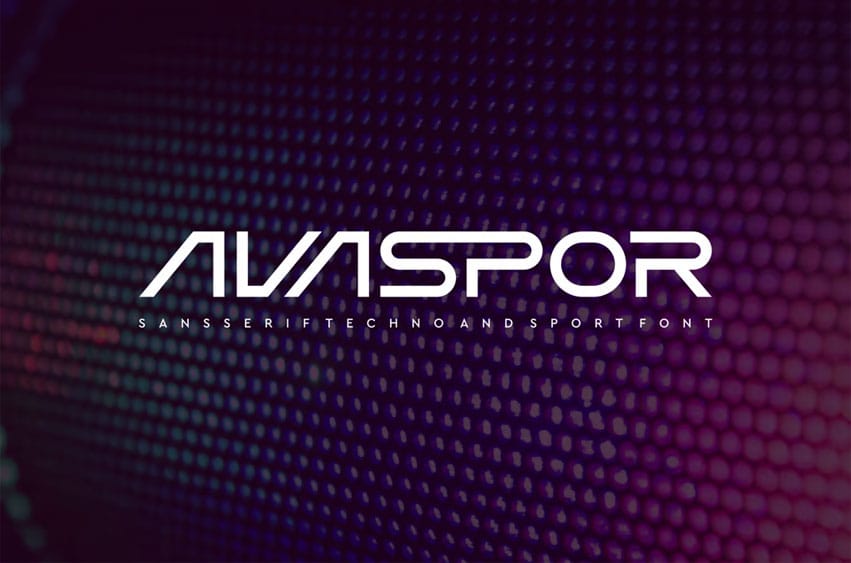
Avaspor Font Modern Font is a bold and authentic display font. The font is suitable for any branding project like logo, t-shirt printing, esport, and many more. outstanding in a wide range of contexts.